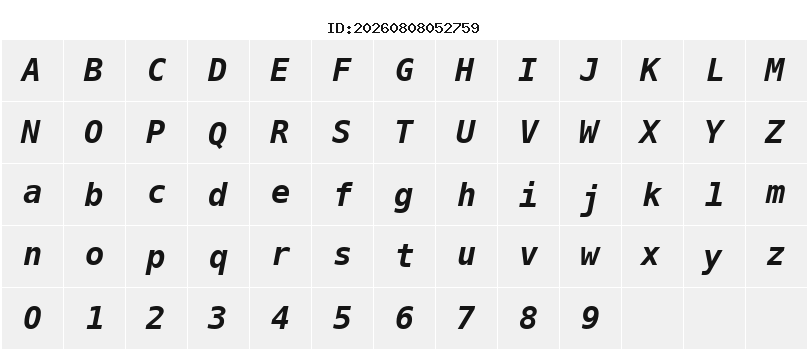
PrimaSansMono BT.ttf is a modern, elegant sans-serif font designed for ultimate readability and visual harmony. Perfect for branding, headlines, web design, and print materials.